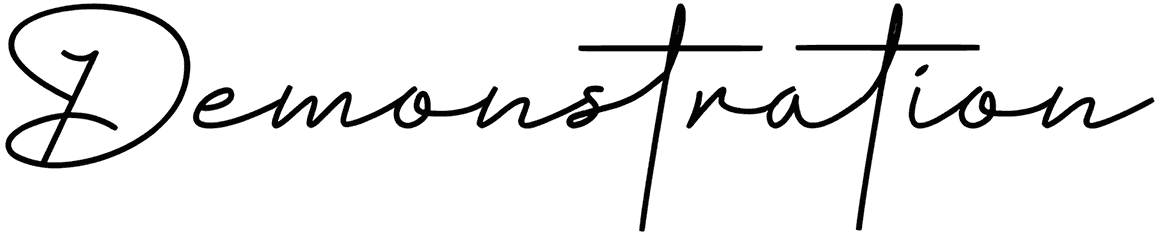
Demonstration Font
Demonstration is an incredibly soft, distinctive, precise, dramatic, and timeless signature font that looks fabulous on every kind of graphic content including posters, logos, brochures, magazines, branding, and book covers which requires a personalized touch.